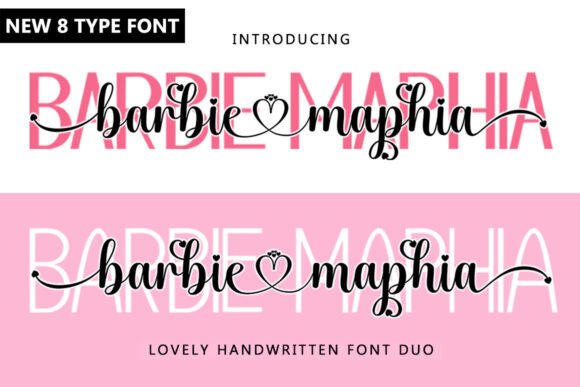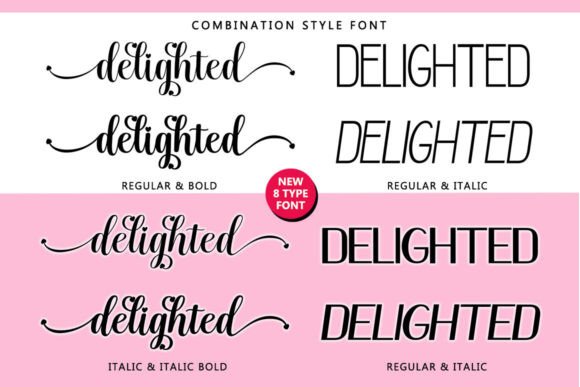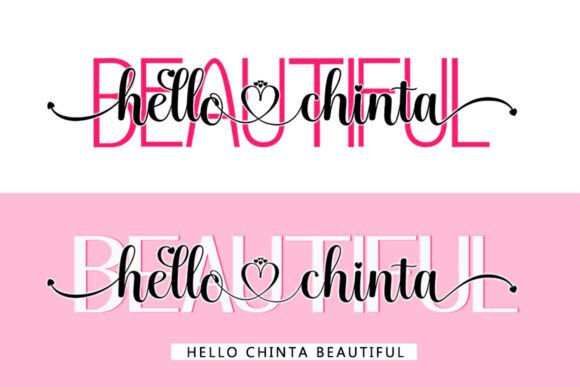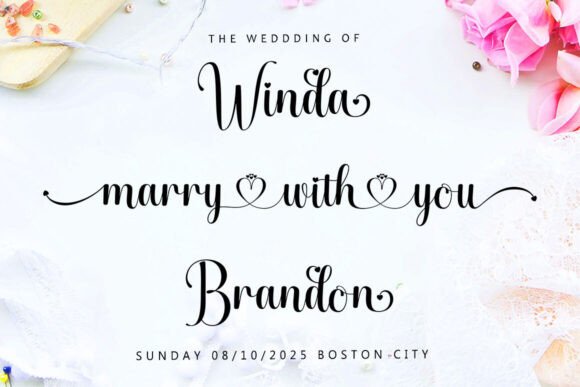
Barbie Maphia Font
About the Barbie Maphia Font
Make a bold statement with Barbie Maphia Font, a powerful and memorable font. This design features a cheerful and romantic font duo called “Barbie maphia Script, Barbie maphia winter and Barbie maphia Vibes.” The main font combines large, bold sans-serif typefaces with a soft touch, accented with delicate cursive flourishes and heart shapes, giving it a charming and unique look. The script font features elegant, flowing handwritten-style letters, further enhancing the romantic and refined aesthetic. Together, these fonts create a harmonious and visually appealing look, perfect for projects related to weddings, invitations, love themes, or feminine branding. The overall design is warm and approachable, with a modern yet timeless appeal.
Barbie Maphia Font Usage Examples
Barbie Maphia Font Example